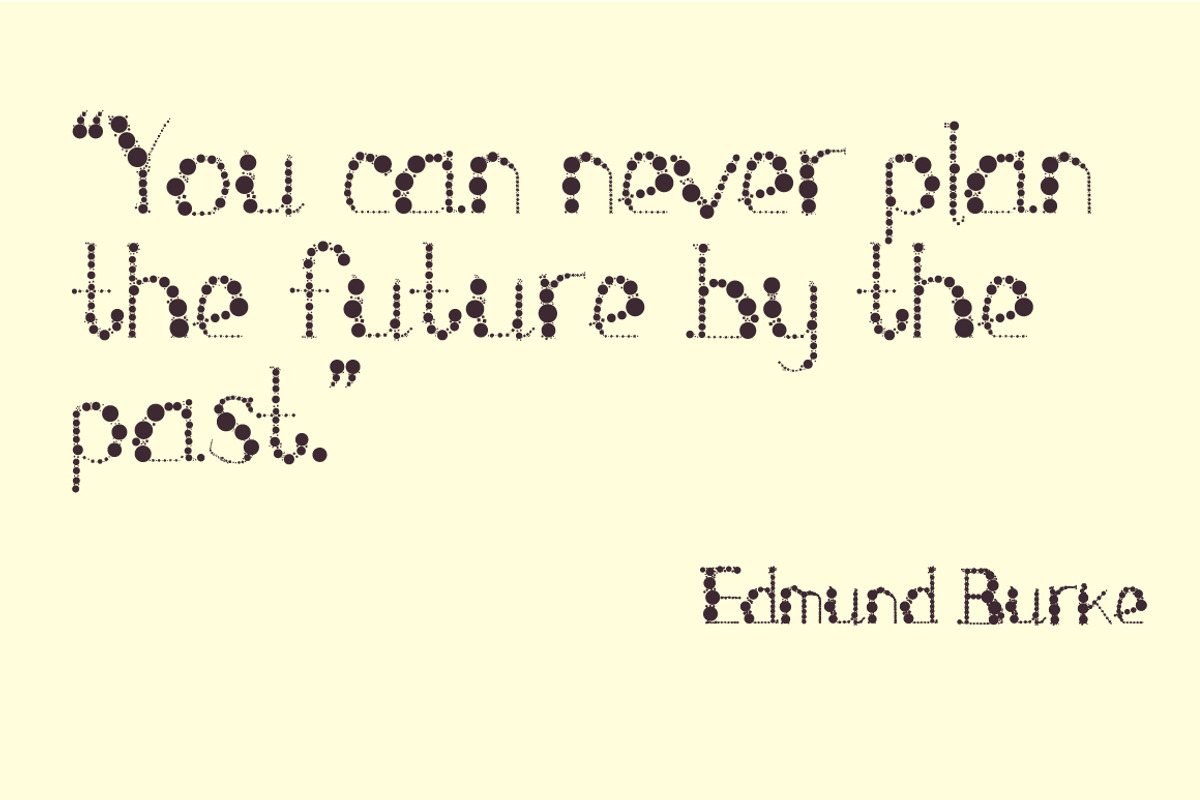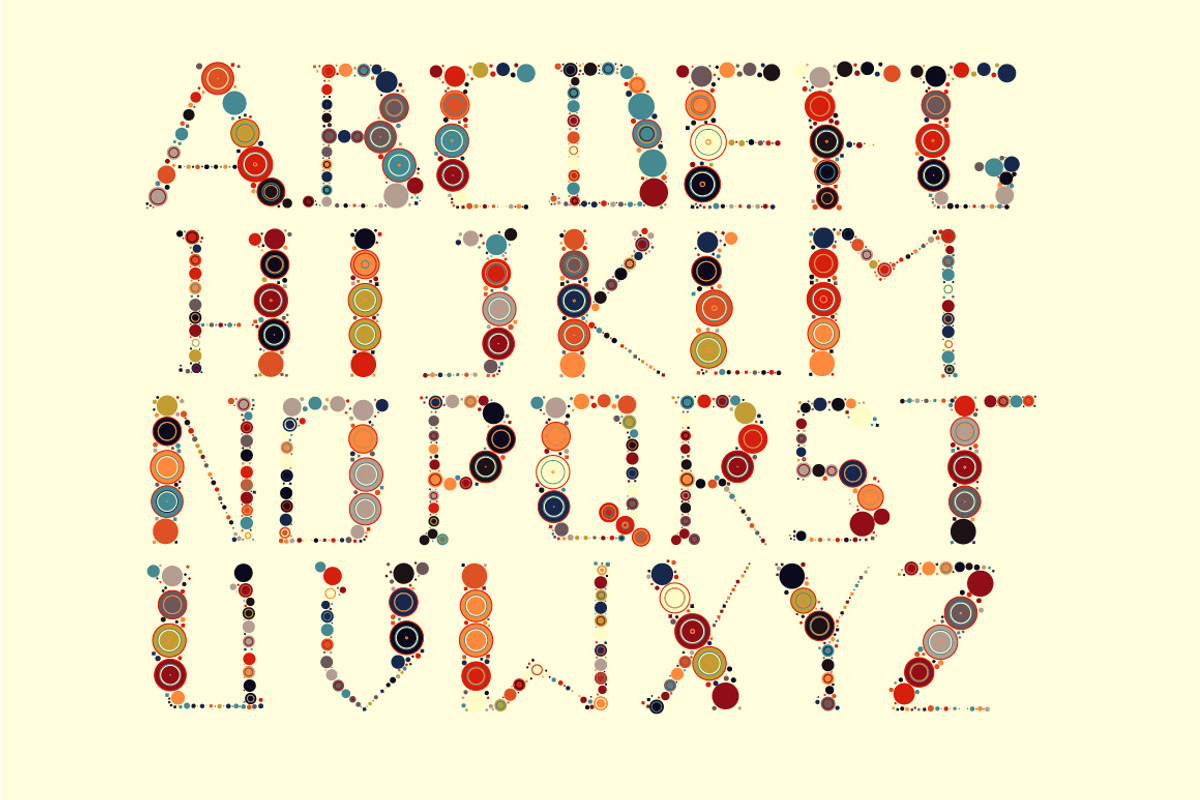
Globule Font
Globule Font by sora.lp is a font selected for branding, posters, packaging, typography.
Why Globule Font is worth a look
Globule Font by sora.lp fits naturally into Branding, posters, packaging, typography.